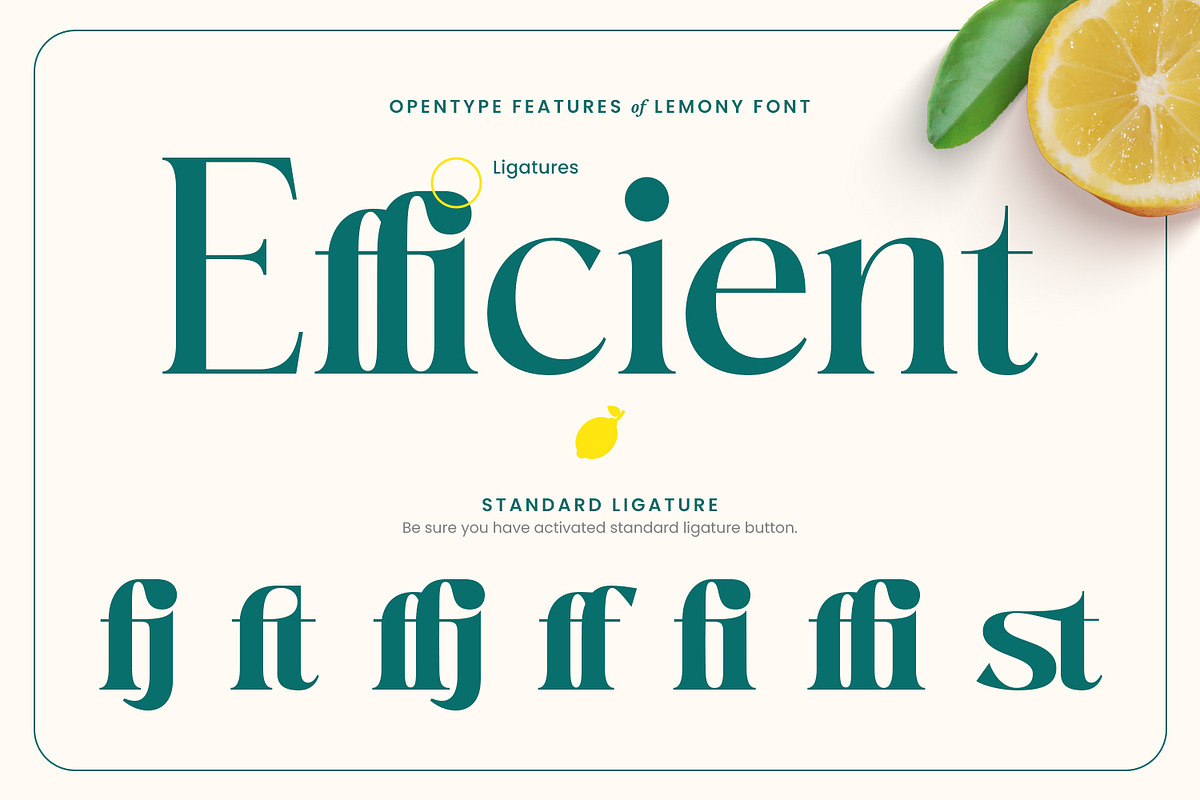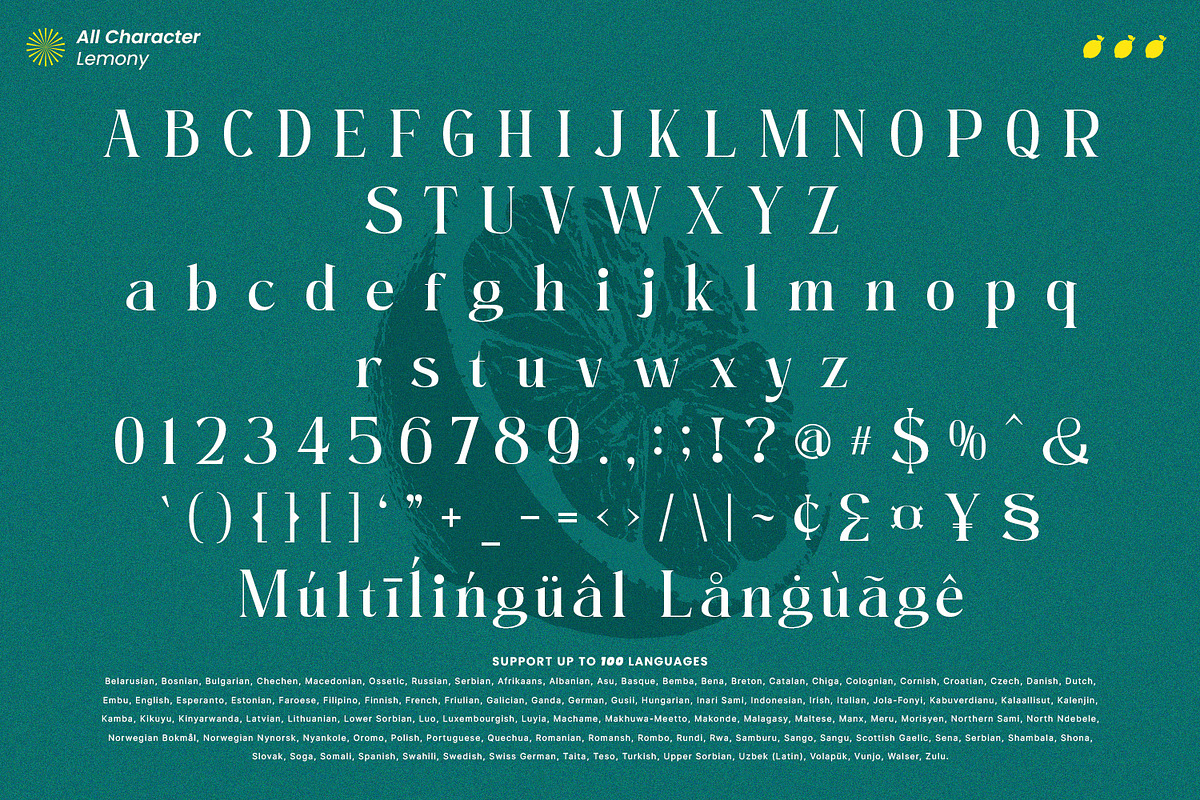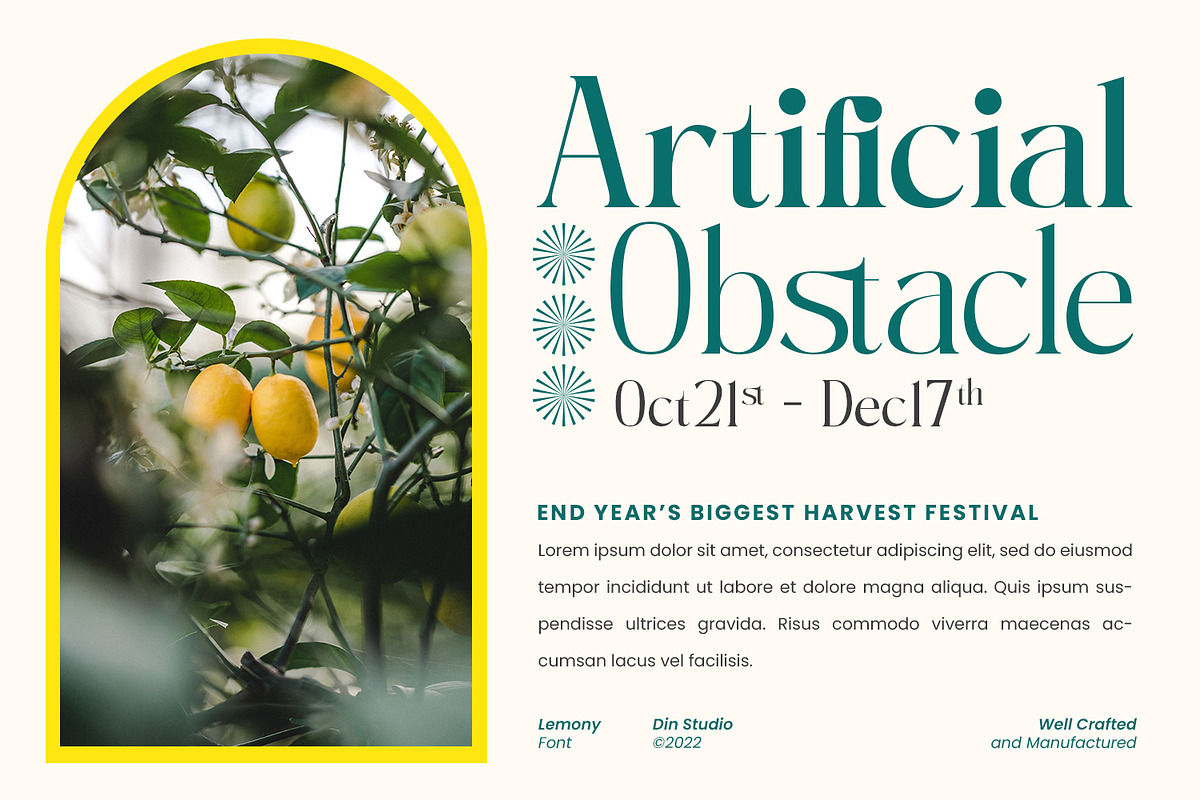
Lemony Font
Lemony is a serif font family in 8 different volume options expressing formality and elegance in your designs. Its family character is that it has small lines in horizontal or vertical forms on the letter body, easing readers to read the letter as the lines guide readers’ attention to the reading directions.
Lemony fits for various design projects, such as posters, banners, logos, magazine covers, quotes, invitations, greeting cards, merchandise social media, etc.
• Ligatures
• Multilingual Supports
• Numerals and Punctuations